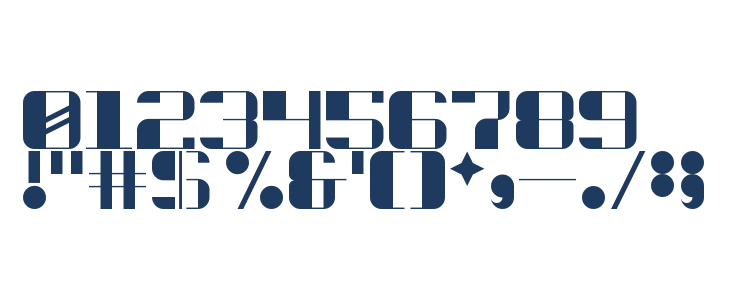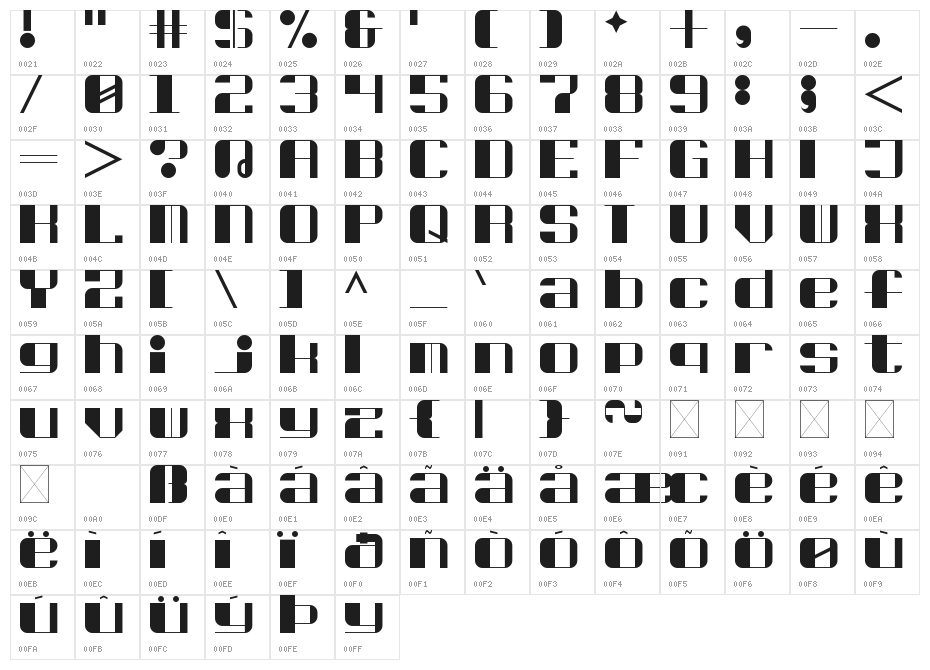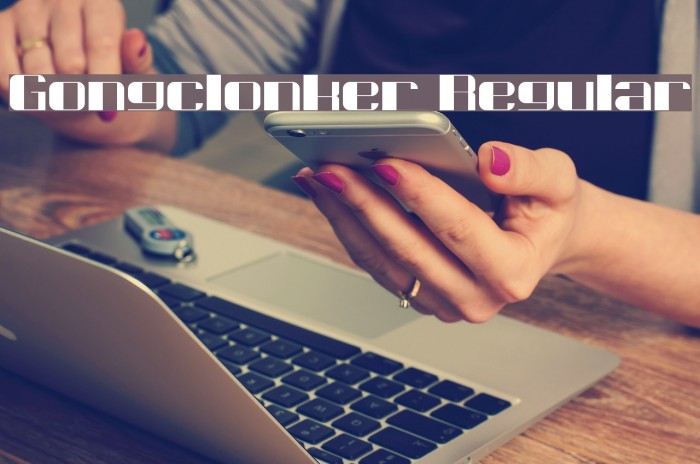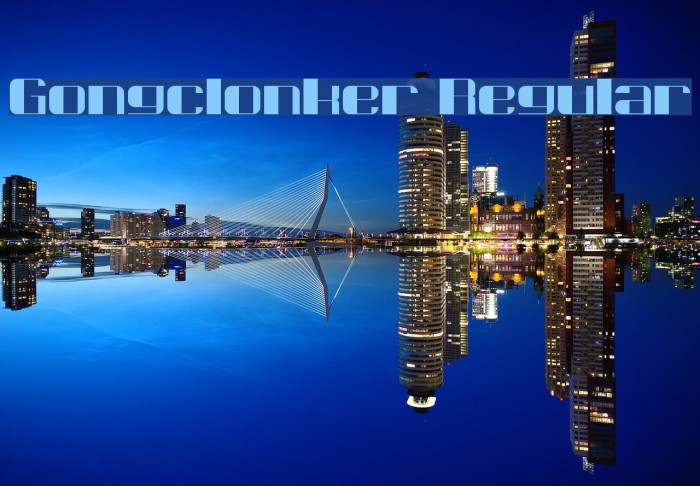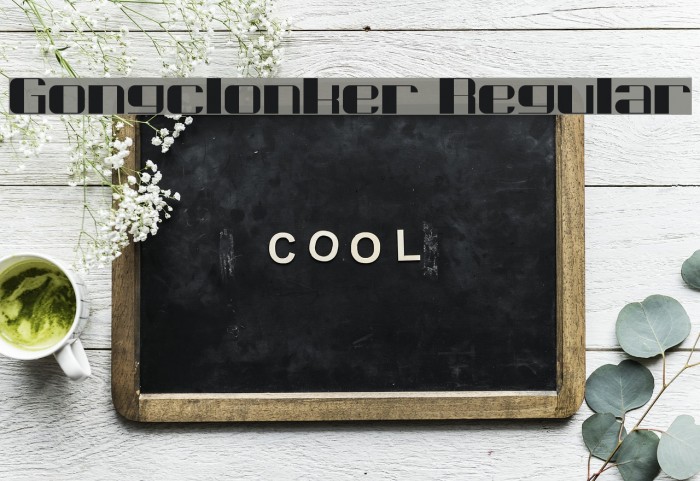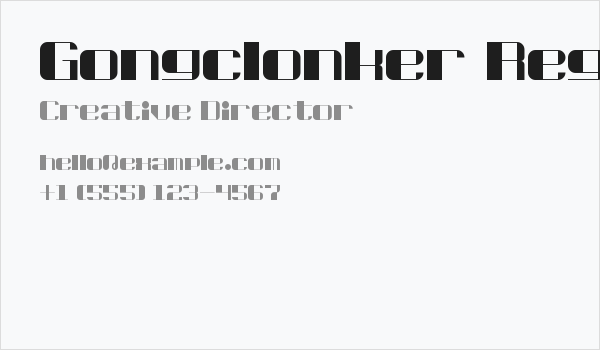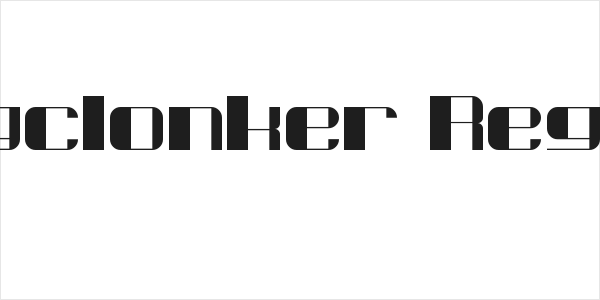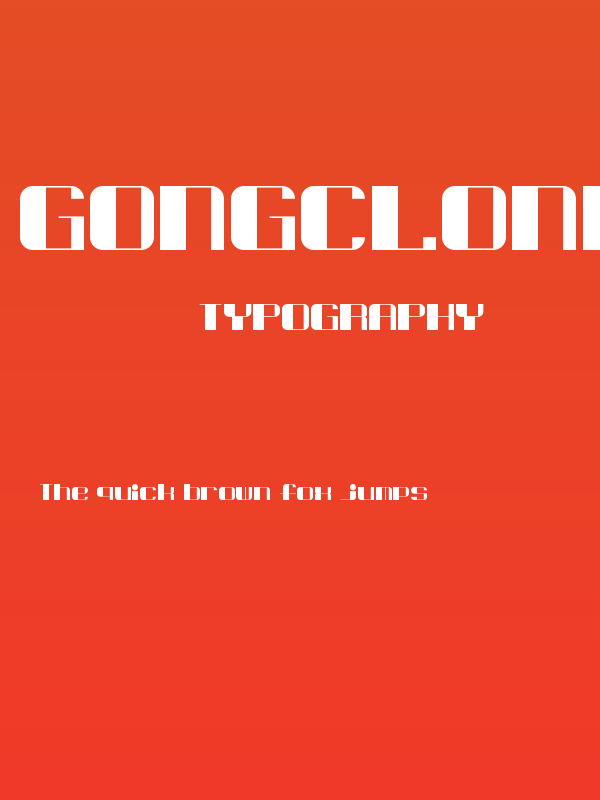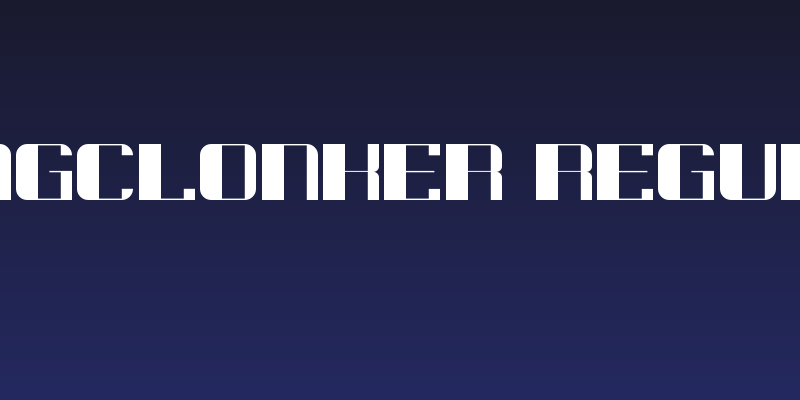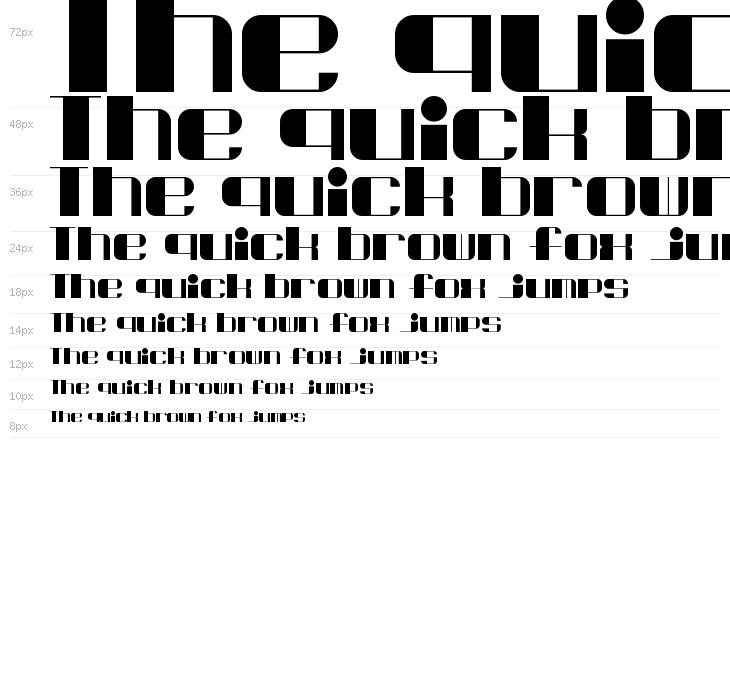
Gongclonker Regular Font
Gongclonker Regular Description
This font features a bold, geometric design with a distinctly modern and futuristic aesthetic. The characters are constructed with a combination of thick, blocky shapes and sharp angles, creating a striking visual impact. The uppercase letters are particularly bold, with a strong presence, while the lowercase letters maintain a consistent style with slightly more variation in form. The numerals and special characters follow the same design principles, ensuring a cohesive look across all glyphs. The font's unique style makes it ideal for projects that require a contemporary and edgy appearance.